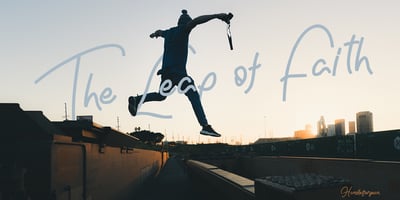
Nachel Victoria Font Family was designed by Yean Aguste and published by HandletterYean. Nachel Victoria contains 4 styles and family package options. Nachel Victoria is a simple, yet aesthetically beautiful typeface. It has a modern script look which can be used for business cards, logos, packaging, branding, magazines, quotes, and much more! What’s included: 1. Nachel Victoria (OTF) 2. Style in this font include: Regular, Bold, Italic, and Bold italic 3. Works on Mac & PC 4. Simple installations 5. Accessible in the Adobe Illustrator, Adobe Photoshop, Adobe InDesign, CorelDraw, even work on Microsoft Word. 6. Support multilingual; ä ö ü Ä Ö Ü ß ¿ ¡